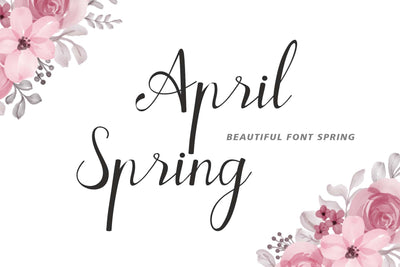
April Spring
"April Spring" is a beautiful and elegant handwritten font. This font is very easy to use because it has been specially designed. Equipped with uppercase, lowercase, numerals, punstuations and multilingual support. It is suitable for weddings, photography, invitations, logos, banners, posters, prints, branding and others.